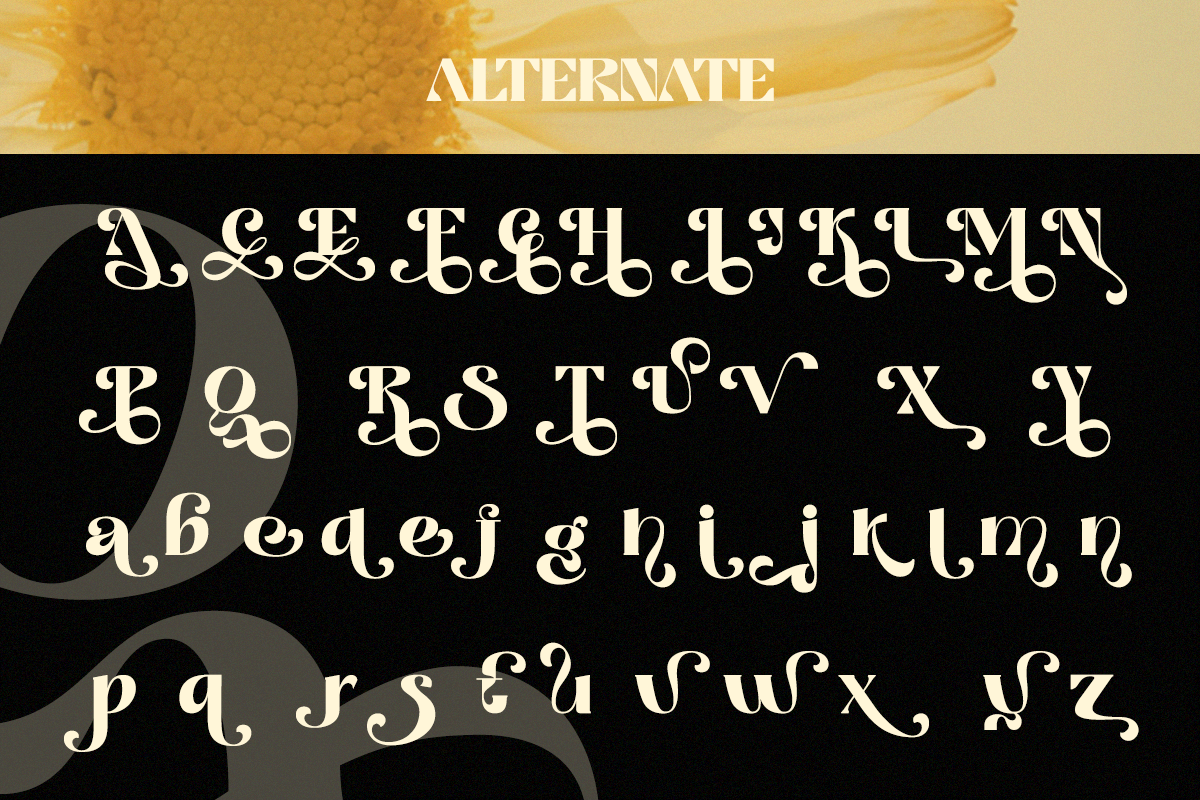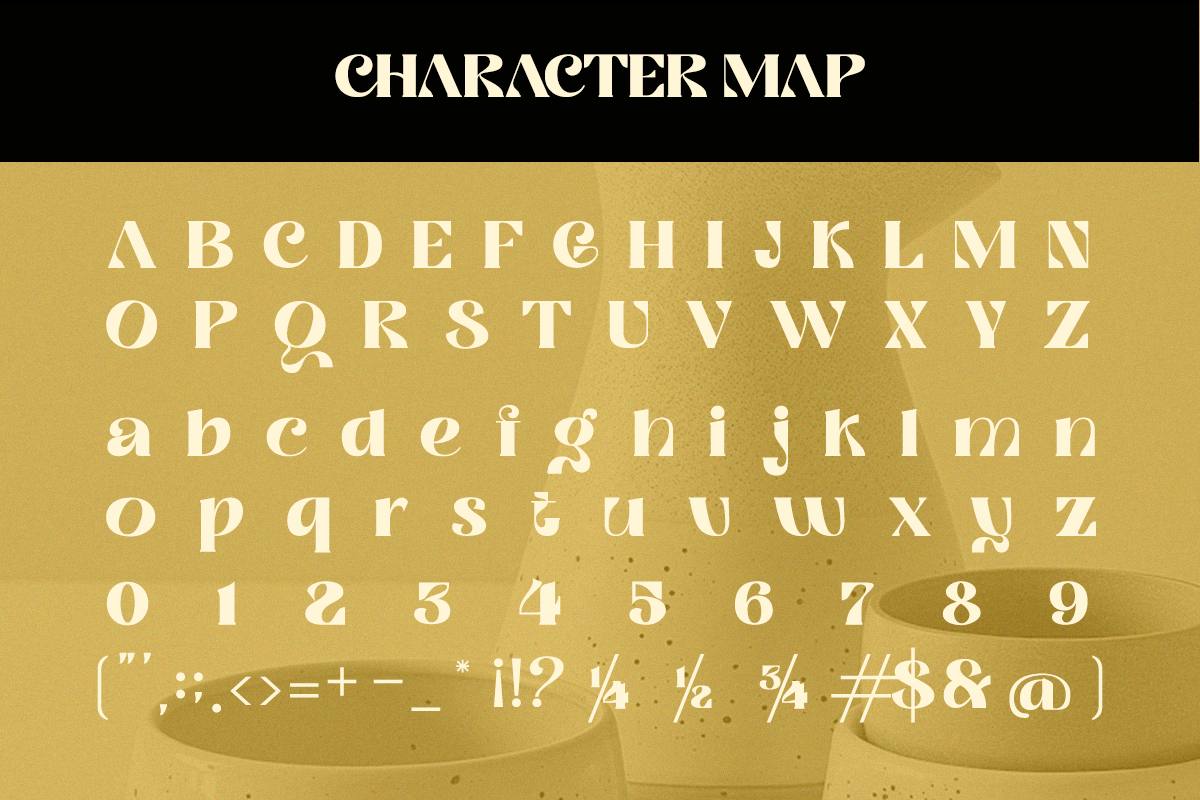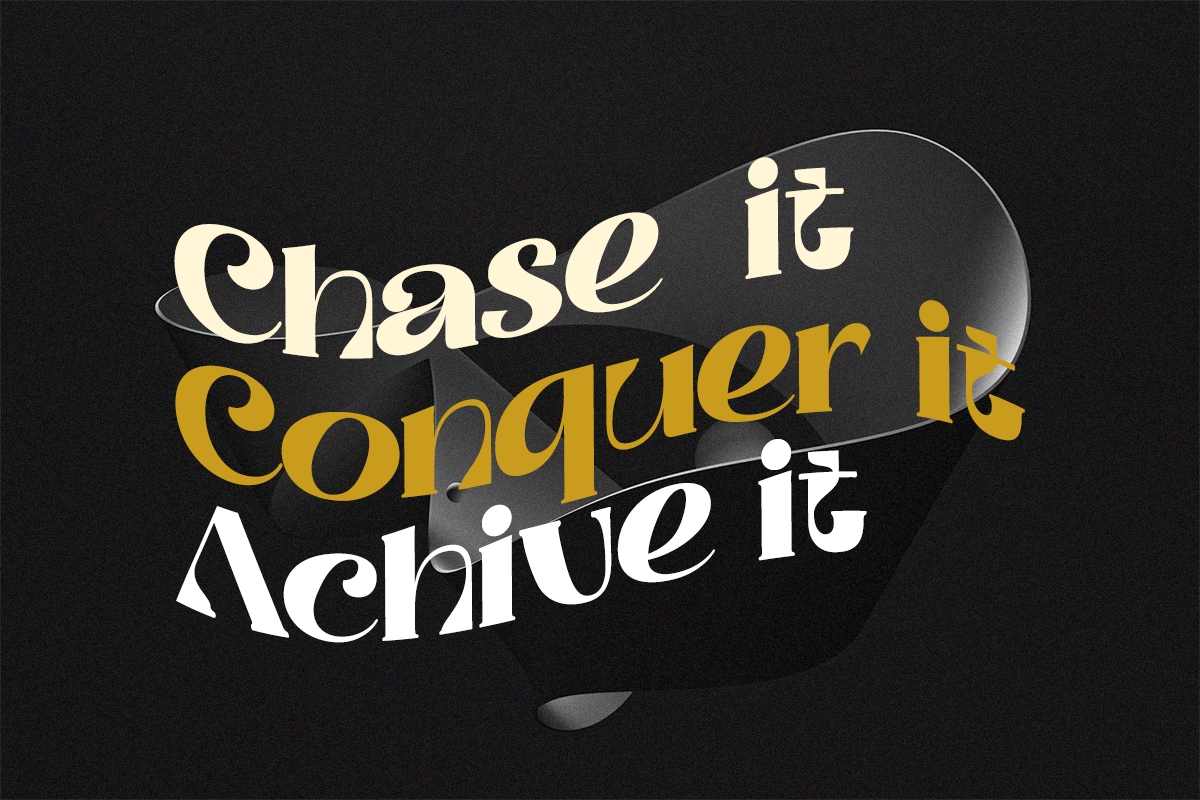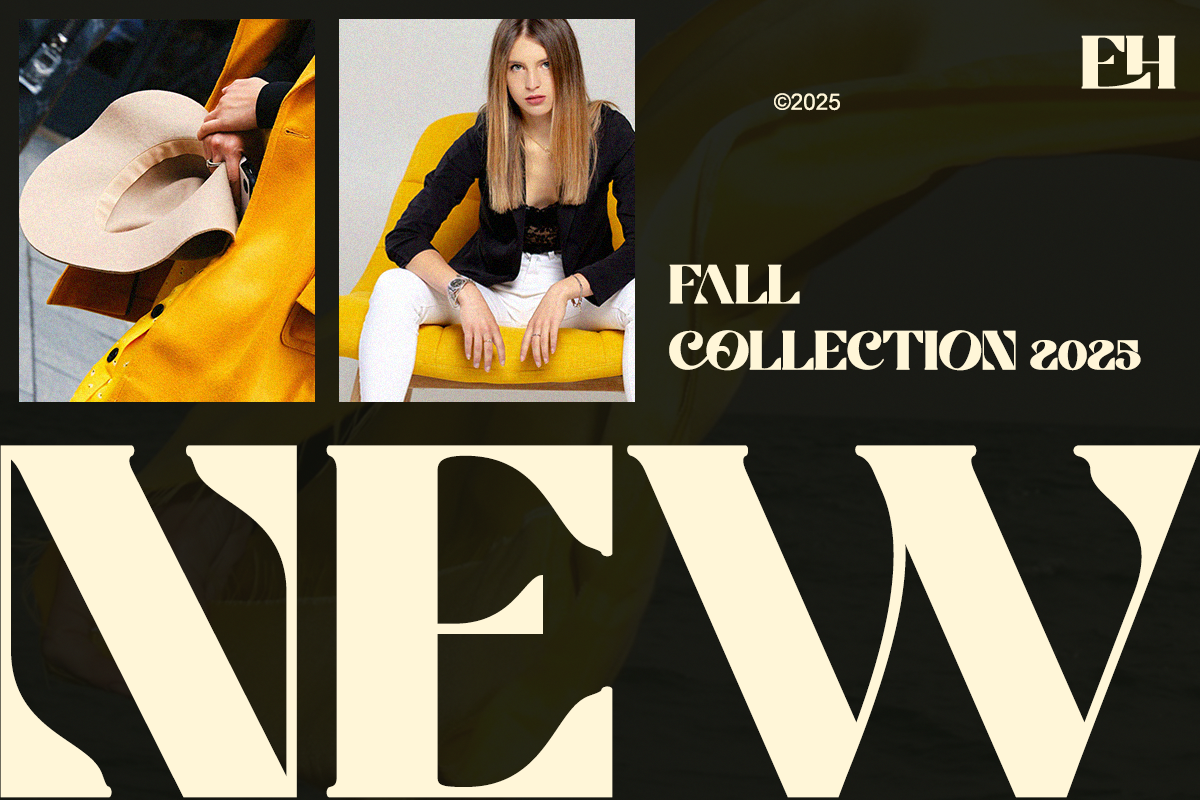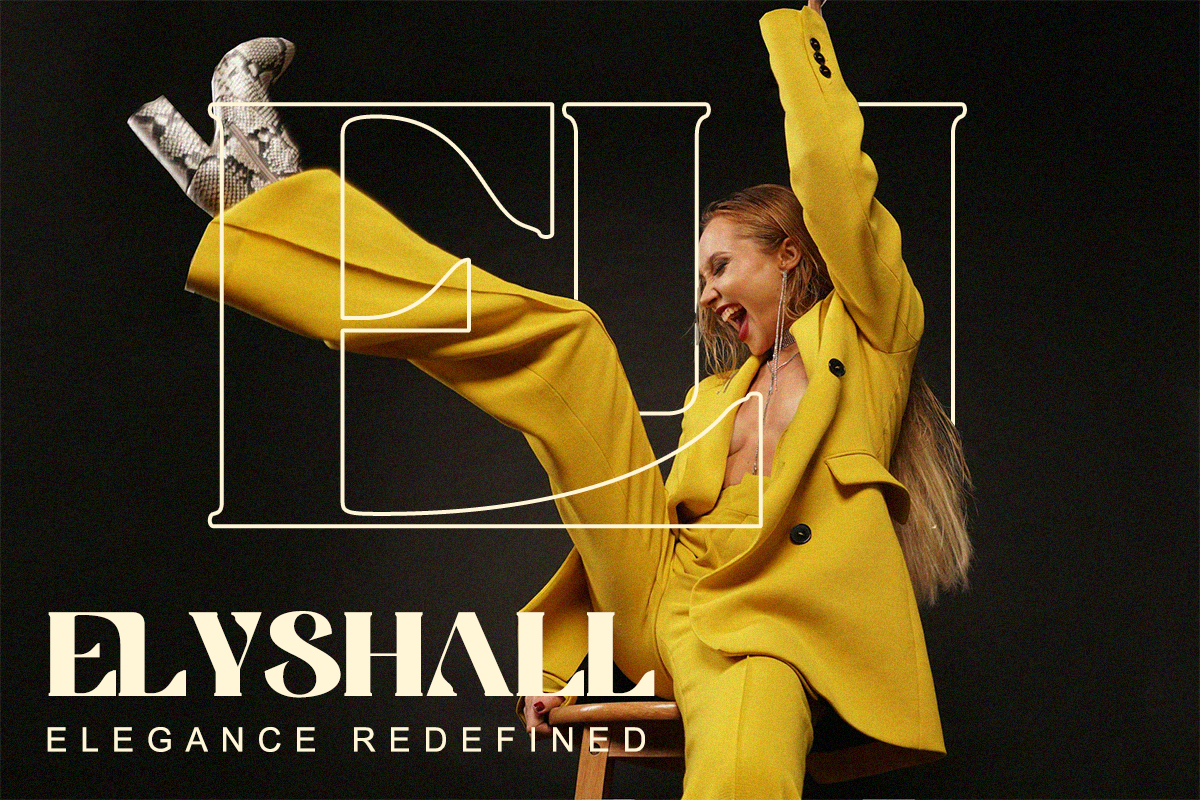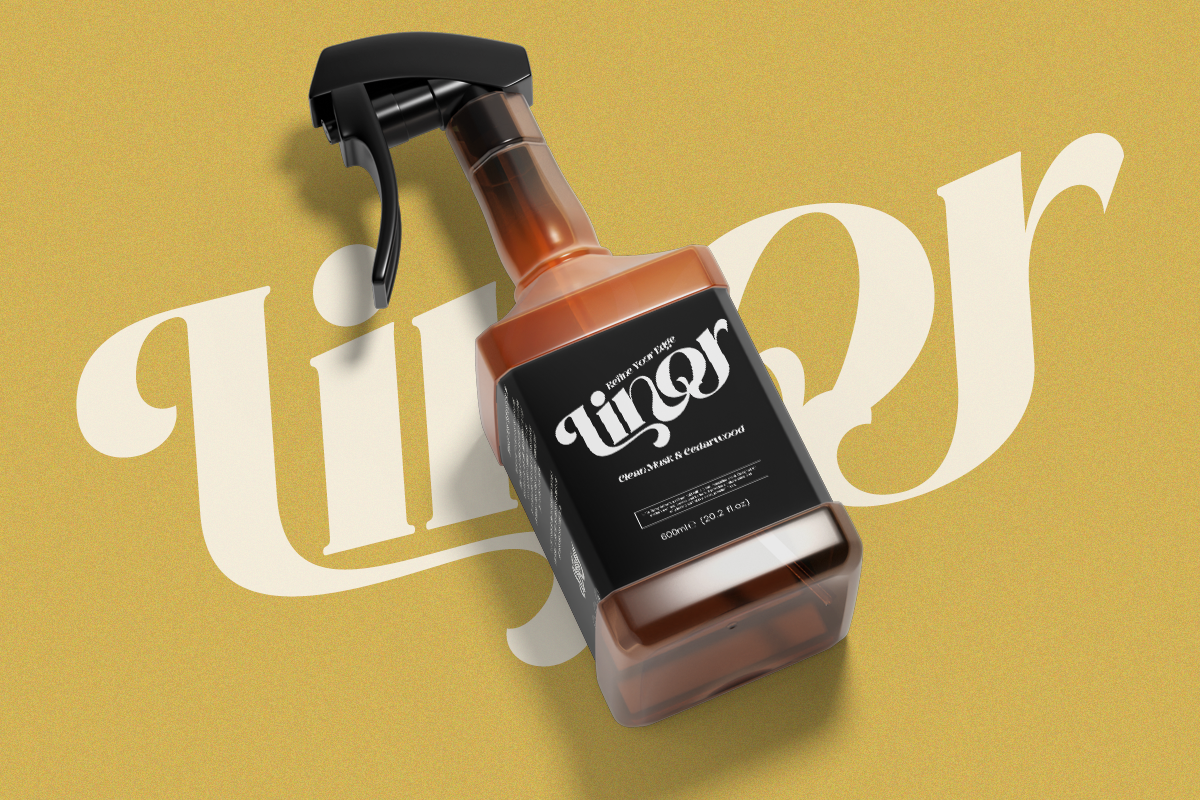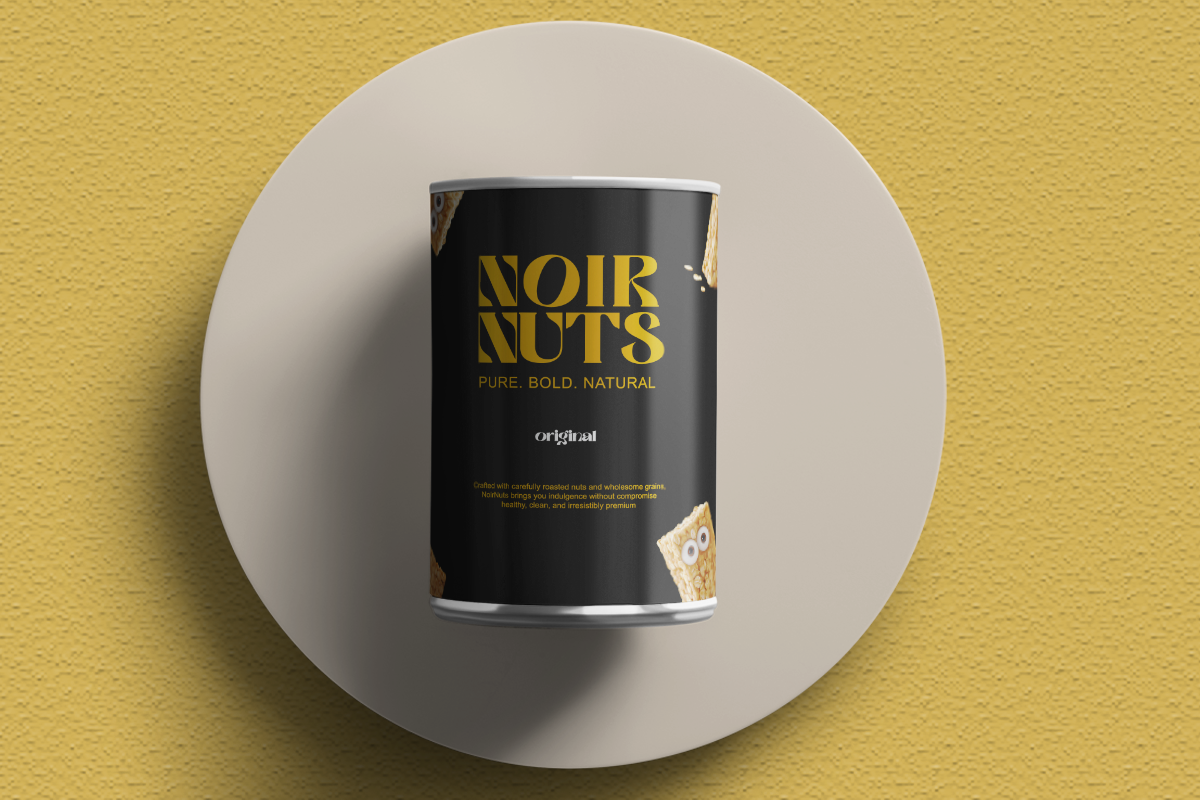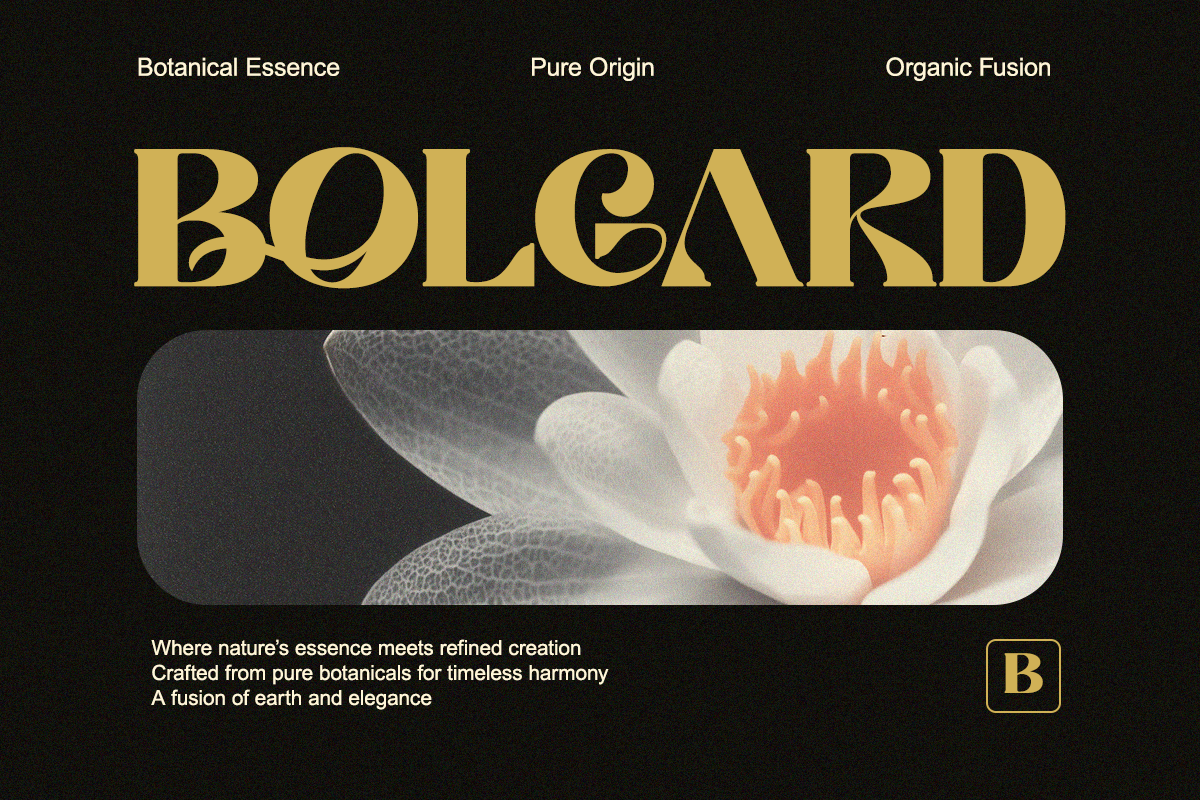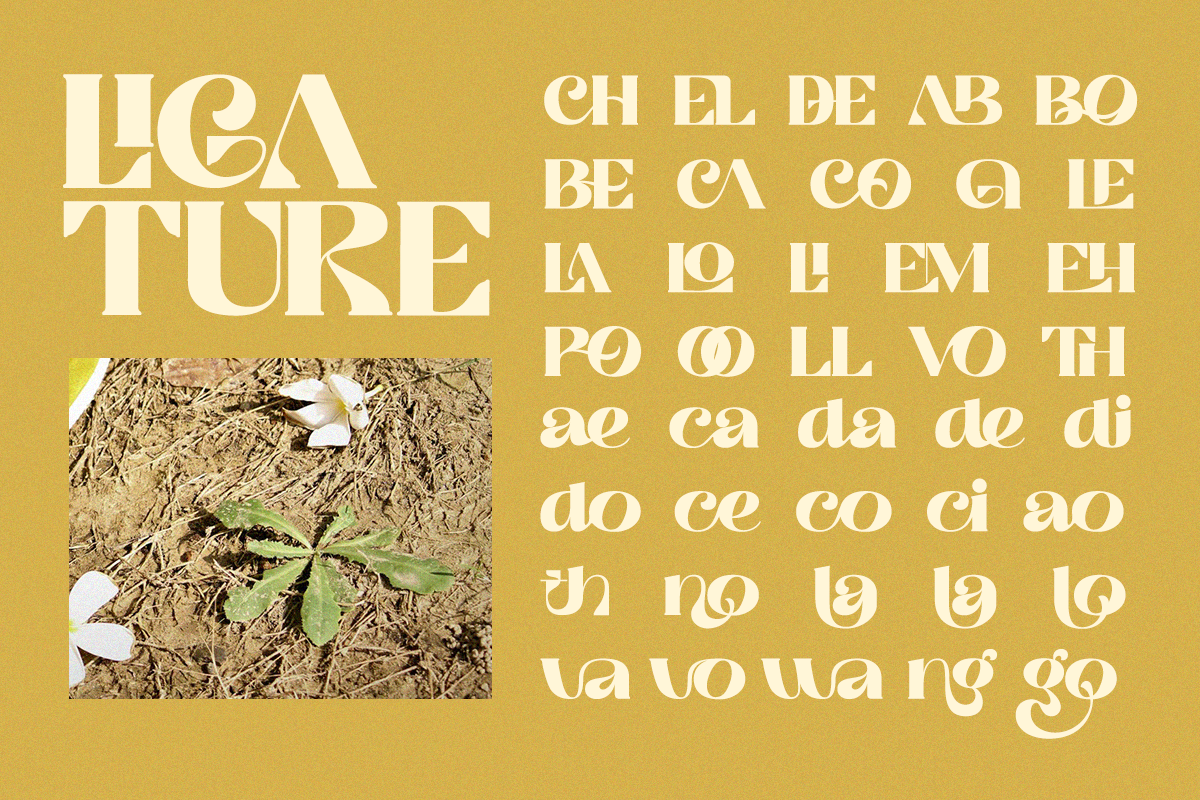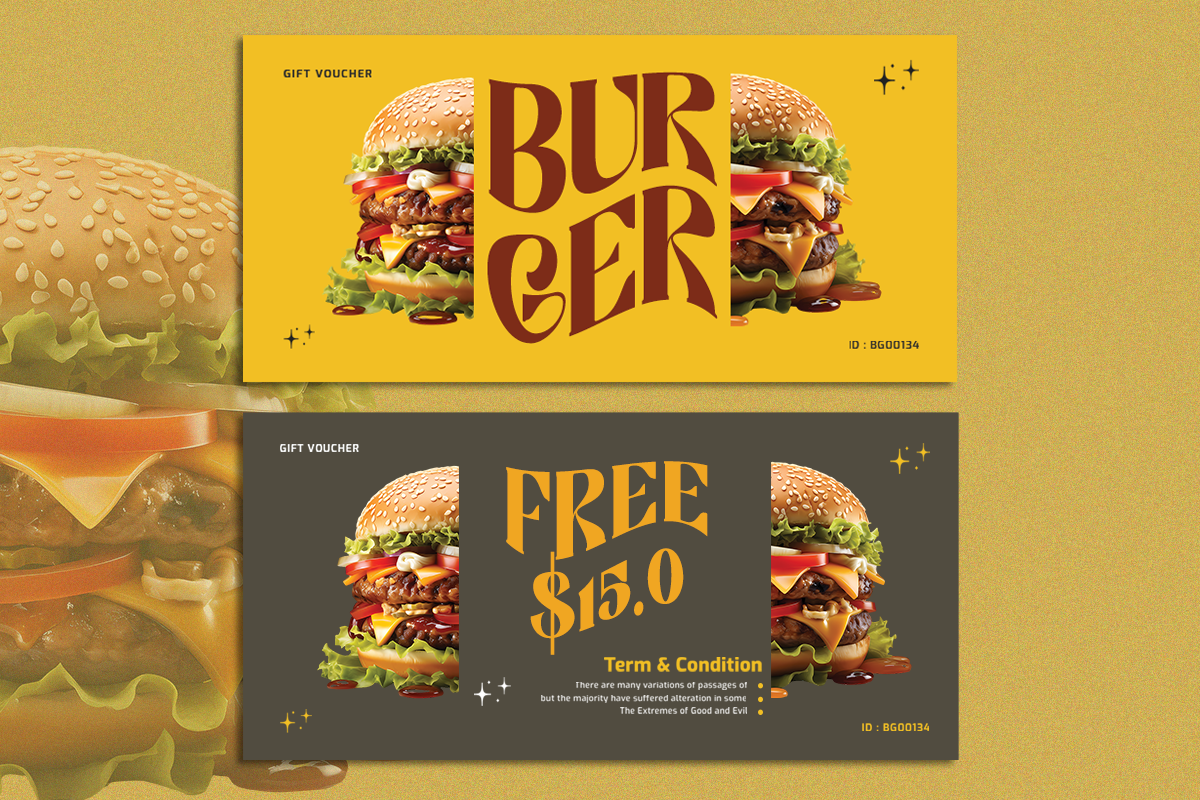
Filoptus - A Bold Modern Elegant
Meet Filoptus, a modern elegant serif with bold curves and beautifully crafted swashes. Its expressive forms offer a perfect blend of luxury and contemporary editorial style, making it ideal for premium logos, packaging, headlines, and high-impact visual branding.
Every character feels intentional—polished, artistic, and designed to make your project stand out with confidence and charm.
- Regular & Italic
- Alternates + ligatures
- High-contrast luxury serif
Perfect For Boutique logos, fashion branding, wedding invitations, perfume labels, magazine titles, luxury product packaging, and aesthetic editorial layouts.